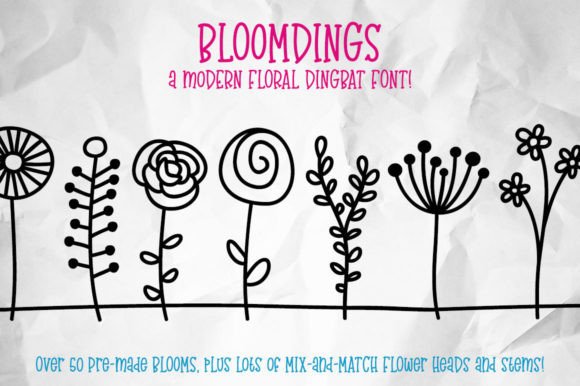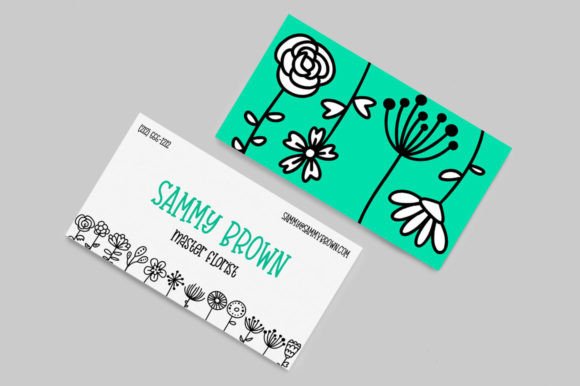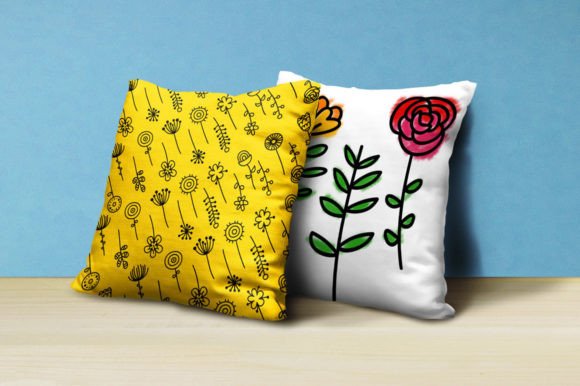
Bloomdings Font
About Bloomdings Font
Introducing “Bloomdings,” a versatile dingbat font that celebrates modern abstract flowers. With over 50 completed flowers and floral elements, as well as additional individual parts, this font allows you to mix and match to create the perfect flowers for your project.
Using “Bloomdings” is as simple as typing on your keyboard. Each flower and element is mapped to regular keyboard keys, eliminating the need for additional software or complex processes. Just type the desired letter or character, and the corresponding flower or element will appear. Whether you’re looking for complete flowers, greens, ground pieces, vases, flower heads, or stems, “Bloomdings” has got you covered.
With “Bloomdings,” you have the freedom to create stunning floral compositions for various projects. Whether you’re designing invitations, cards, posters, digital graphics, or any other creative endeavor, this font provides a wealth of modern abstract flowers to enhance your designs.
Unleash your creativity and experiment with different combinations of flowers and elements to bring your vision to life. The versatility of “Bloomdings” allows you to create unique and eye-catching floral arrangements that will captivate your audience.
Embrace the beauty of modern abstract flowers with “Bloomdings” and let your designs bloom with elegance and creativity.